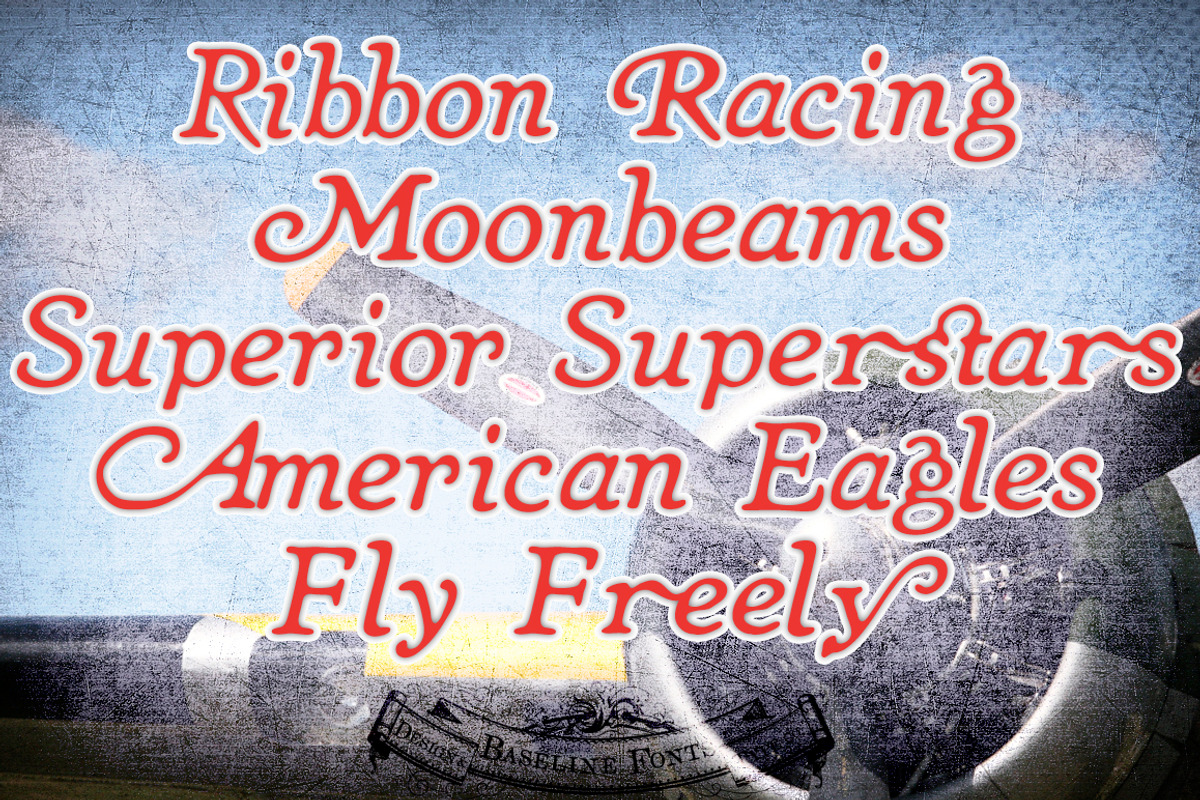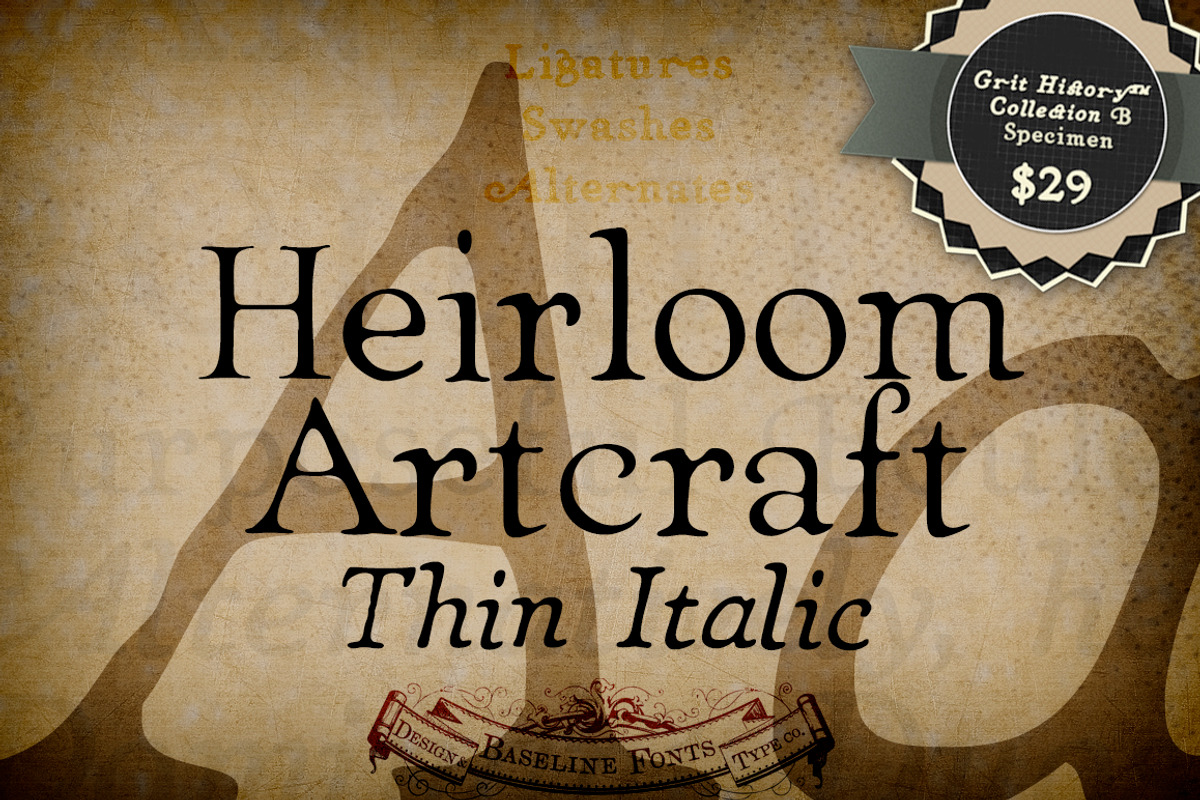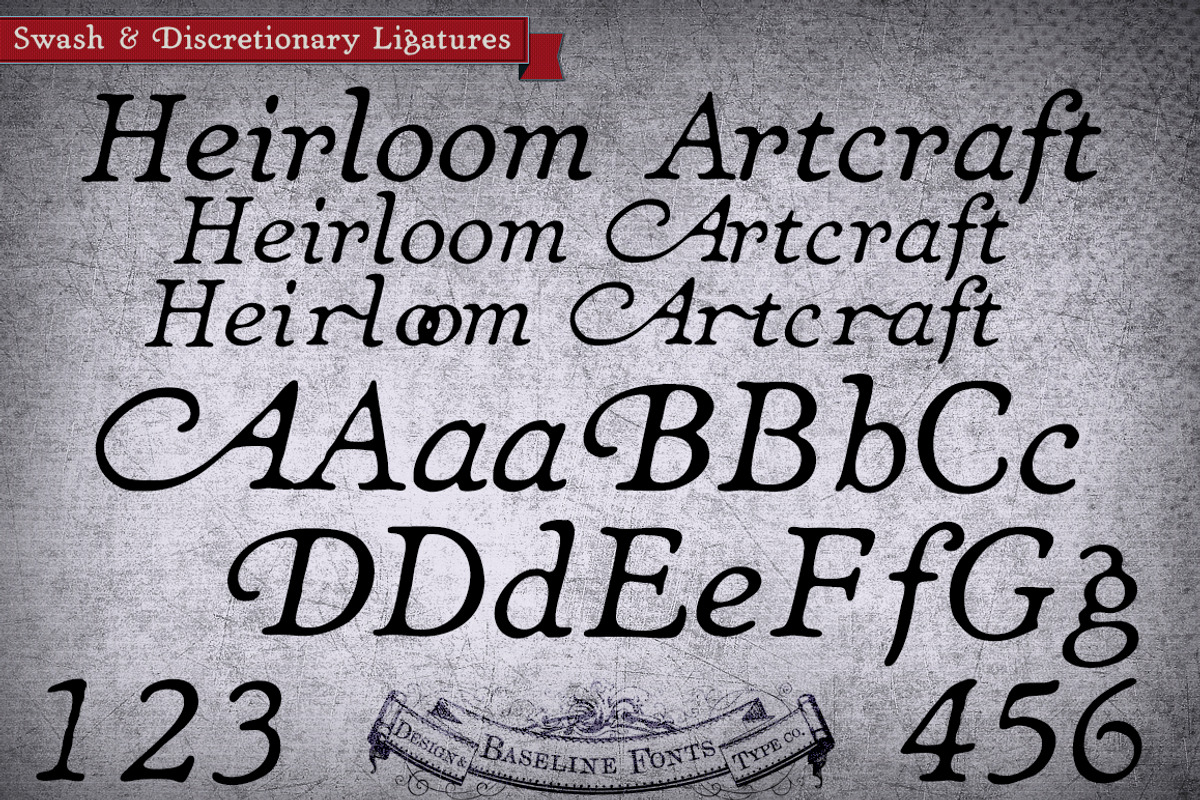
Thin Italic Heirloom Artcraft
Presenting Heirloom Artcraft-- by Baseline Fonts within the Grit History B series.
Like an auntie who insists on baking cookies from scratch every time you visit, Heirloom Artcraft is a beacon of tradition and consistent delight with every letterform. Gentleness and subtlety keep this font far away from kitsch. This font sincerely says "ma'am" and "sir" and is perfect for business cards, custom stamps, coffeetable books, letterhead, invitations and anywhere you or your client wish to make an extremely well mannered and charming statement.
There are many alternate ligatures available within the font including capital alternates for T, A, P, B, D, and N. It also boasts a full symbol set and the most darling little swashes scattered tastefully throughout the character map you ever did key.
Heirloom Artcraft is available in Thin, Thin Italic, Book, Book Italic, Demi Italic, Black, and Black Italic. It also features Metrics and Optical kerning-- metrics displays characters with letterpress-traditional spacing that is pleasantly askew, or more rigid optical kerning which displays characters at identical distances for times when the importance of readability exceeds that of stylistic merit.